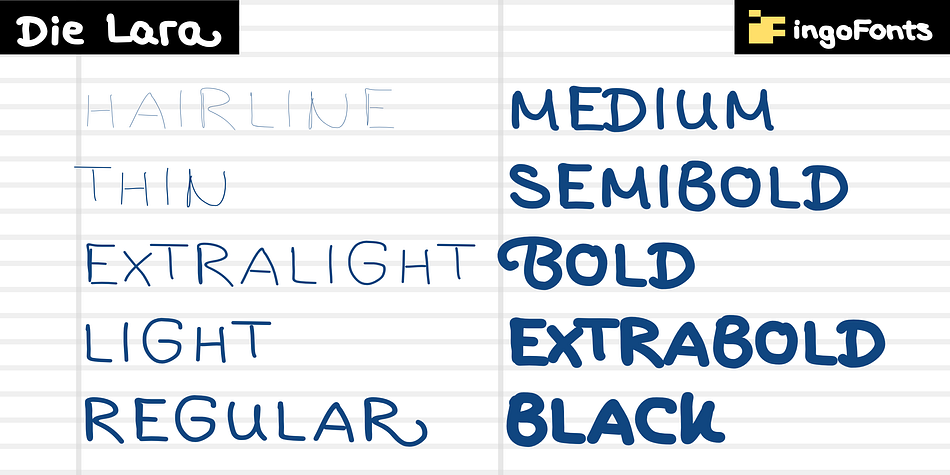
Die Lara
Designed by Ingo Zimmerman, Die Lara is a hand drawn and kids font family. This typeface has eleven styles and was published by ingoFonts.
A girl’s handwriting written on the iPad
Writing changes – throughout history over centuries, but also from generation to generation. Each new generation of students learns to write the basic forms of the letters a little differently than their predecessors. The role model is also changing. The cursive handwriting taught in school is getting closer and closer to printed type. The children no longer learn the forms of cursive handwriting required for connected writing, but first the “block letters”, only later should they develop their own individual handwriting from this, which many of them no longer do.
And the writing tool is also changing. Of course, script looks different when children no longer learn to write on paper with a fountain pen, but on a tablet computer with the “pencil”. The writing experience is completely different, and the “material properties” are different too. There is practically no writing resistance that would make it difficult to move against the direction of writing.
“Die Lara” was created based on the template by Lara Mörwald from the winter of 2023. The font version “Black” corresponds to the handwritten original, all thinner variants up to the wafer-thin “Hairline” are derived from it. In the variable font, the intermediate forms can be selected steplessly.
In order to preserve the handwritten character of the font, “Die Lara” contains several alternates to most letters and numerals, so that different character forms alternate in the typeface. If the “ligatures” function is activated in the app (which is the default in most programs), these alternates appear automatically as you type.
There is also an alternative “swashed” variant of some letters. So you can set somewhat livelier accents at the beginning or end of a word.
“Die Lara” also contains fractions and tabular figures.